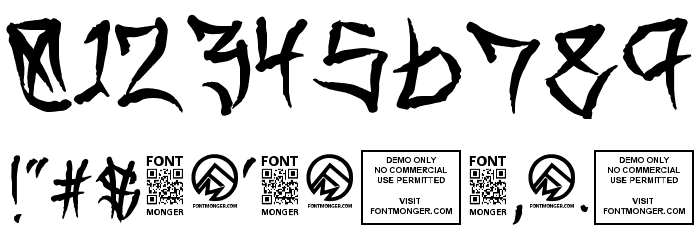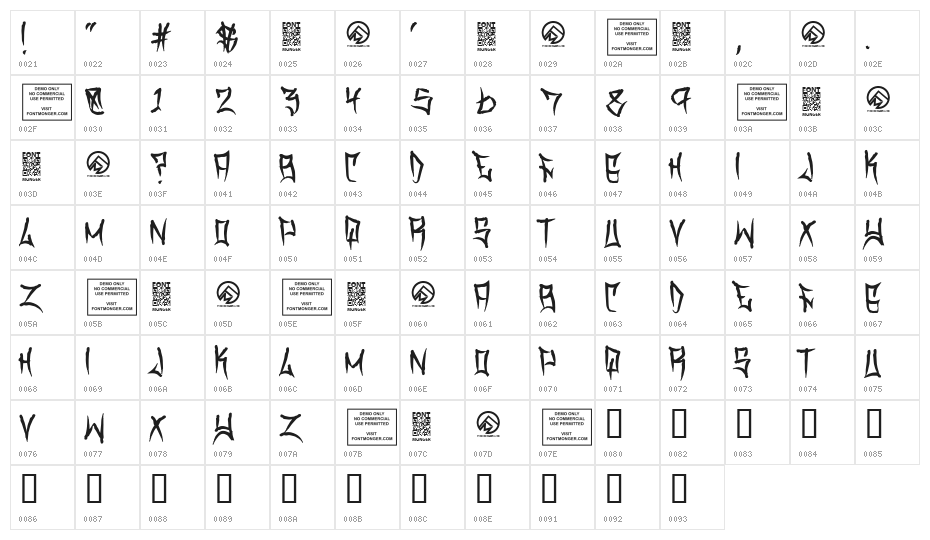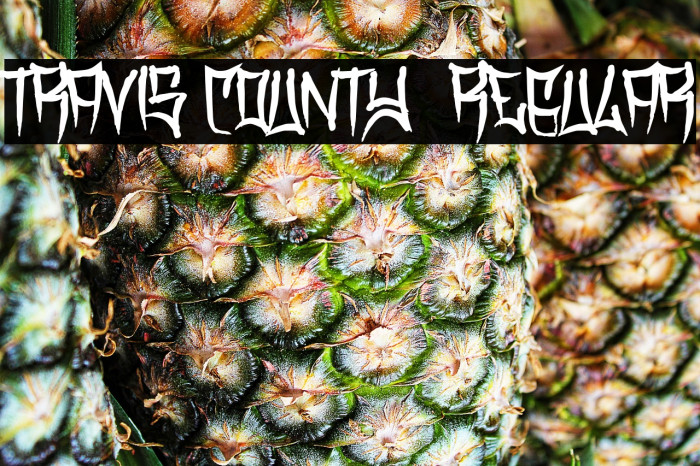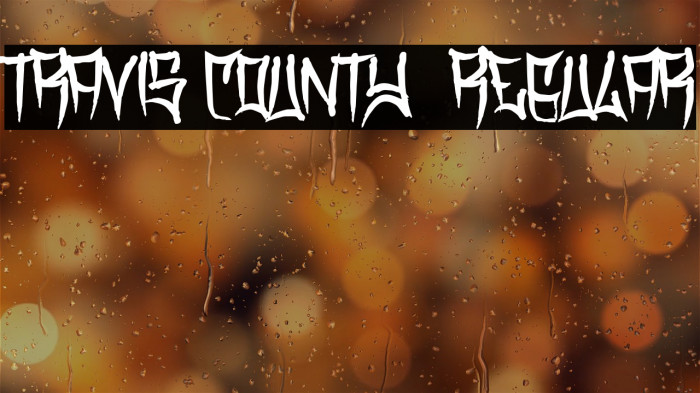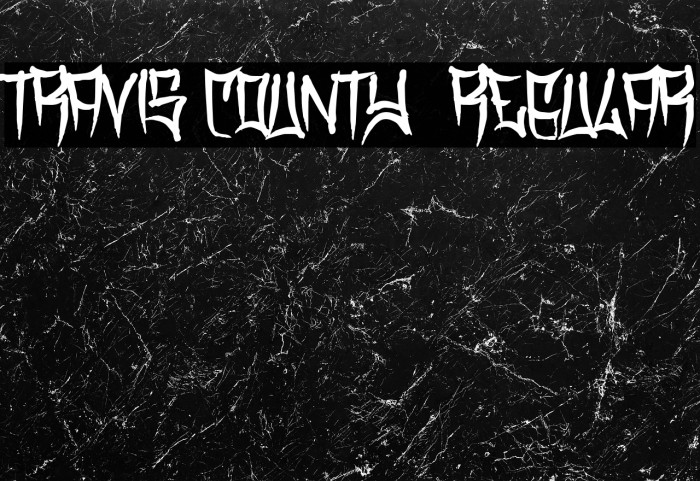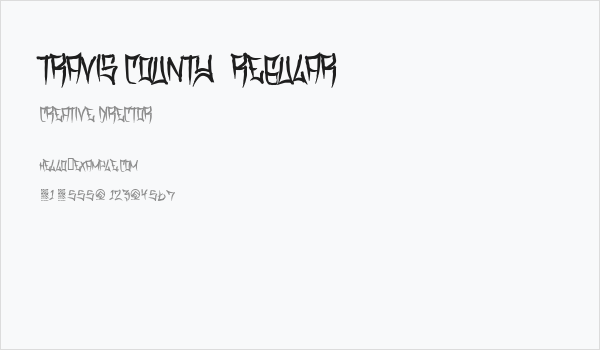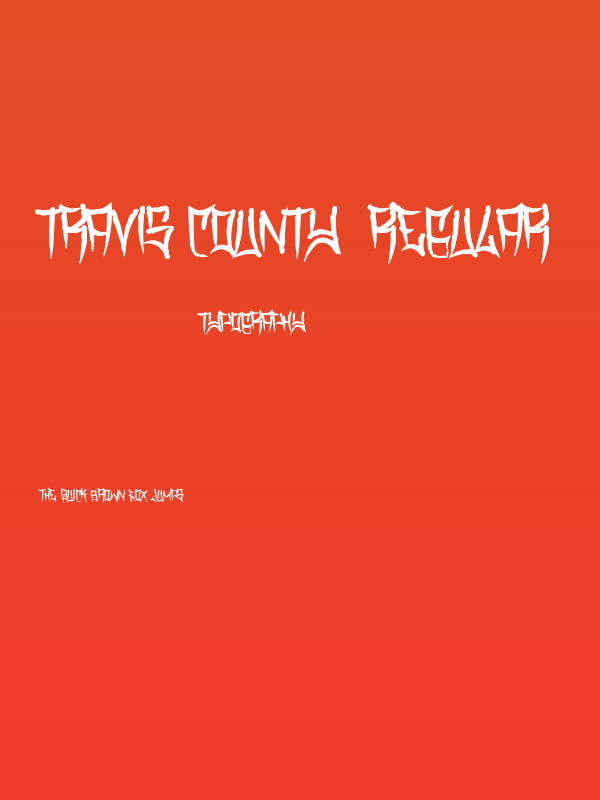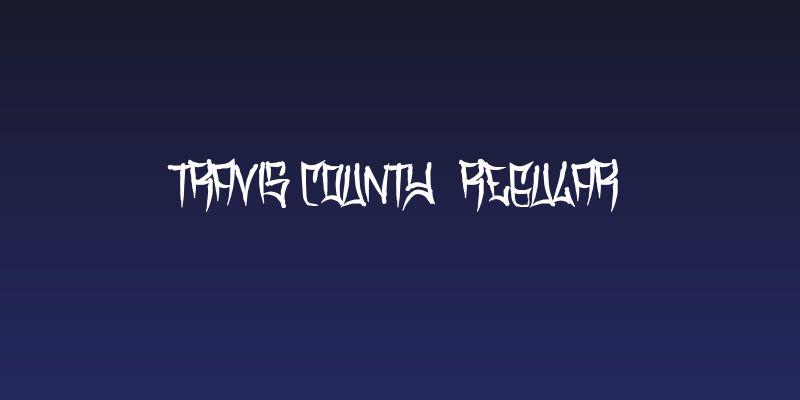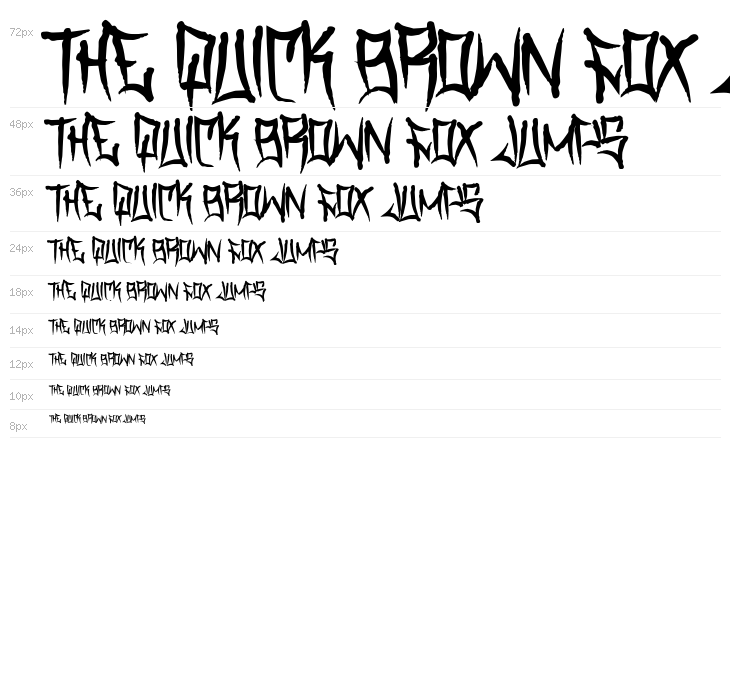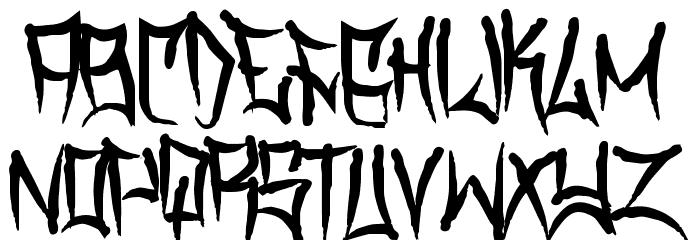
Travis County Regular Font
Travis County Regular Description
This font features a bold, edgy design with sharp, angular strokes and a graffiti-like appearance. The characters are highly stylized, with exaggerated curves and points, giving it a rebellious and urban feel. The uppercase and lowercase letters maintain a consistent style, while the numbers and special characters complement the overall aesthetic. The font's unique design makes it stand out, suitable for projects that require a strong visual impact.
| Overall Style | Urban, Edgy, Graffiti |
| Use Case | Logos, Posters, Album Covers |
| Proposed Projects | Ideal for street art designs, music album covers, urban-themed posters, and edgy branding projects. |